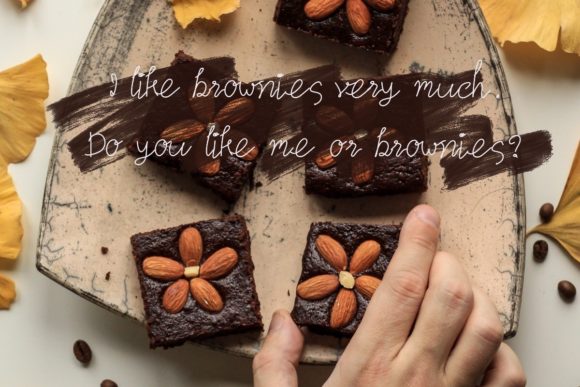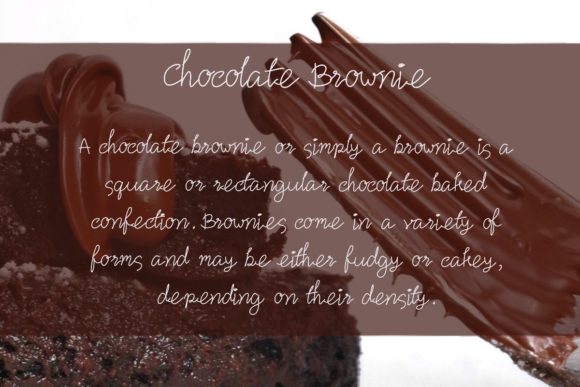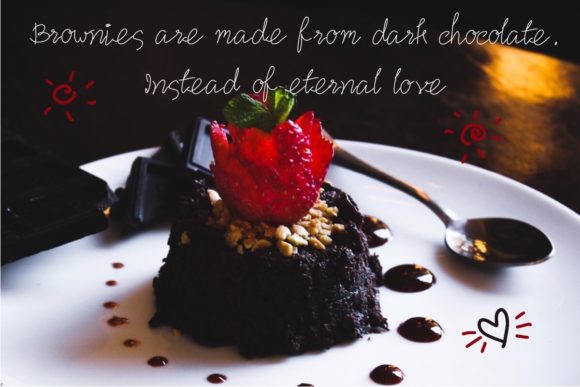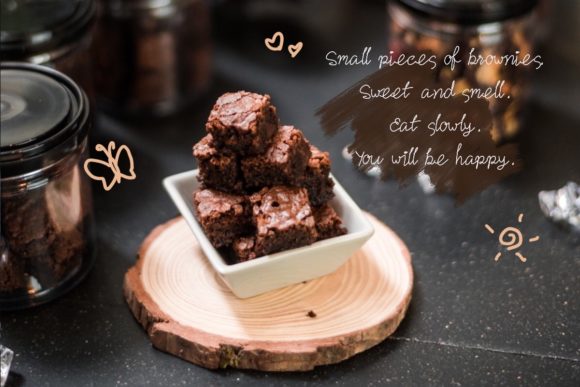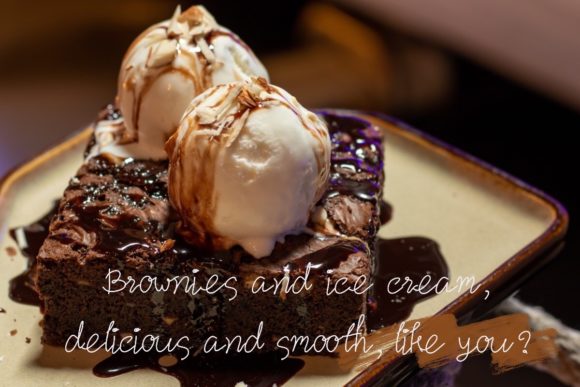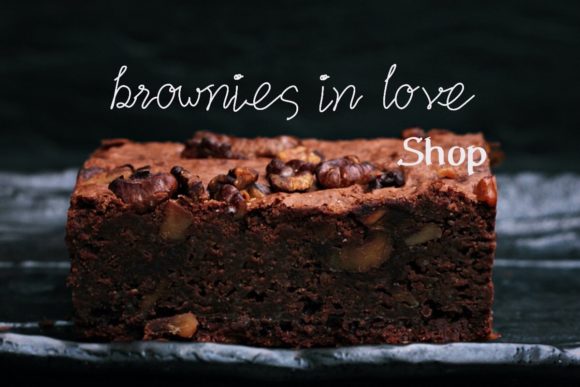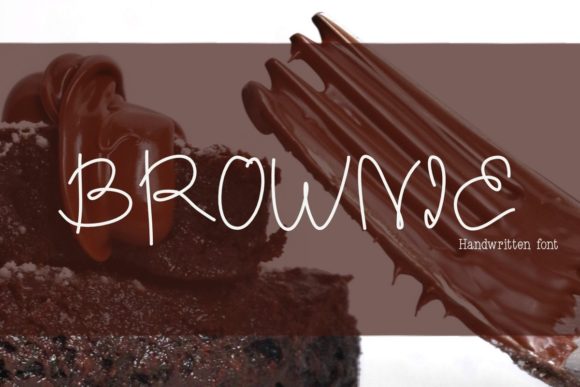
Brownie Font: Elevate Your Designs with Elegance and Style
In the world of typography, a font can make or break the aesthetic of a design. For those seeking a touch of elegance and personalization, the Brownie Font is an exceptional choice. This stylish and elegant handwritten font is perfect for a variety of design projects that require a sophisticated, yet personalized touch.
What is Brownie Font?
Brownie Font is a beautifully crafted handwritten font, designed to add a touch of luxury and refinement to any design. Its elegant strokes and fluid letterforms make it an ideal choice for designers and crafters looking to create stunning visual content. Whether you’re working on wedding invitations, thank you cards, greeting cards, logos, or any other design project, Brownie Font is sure to impress.
Key Features of Brownie Font
- Elegant Handwritten Style: Brownie Font boasts a stylish and elegant handwritten style, perfect for designs that require a personal touch.
- Versatile: This font is versatile and can be used on a variety of design projects, including wedding invitations, thank you cards, weddings, greeting cards, logos, and more.
- Easy to Read: Despite its elegant style, Brownie Font is easy to read, making it perfect for body text and captions.
- Scalable: This font is highly scalable, ensuring that it looks great on any device or medium.
Uses of Brownie Font
Brownie Font is an excellent choice for a wide range of design projects, including:
- Wedding Invitations: Add a touch of elegance and sophistication to your wedding invitations with Brownie Font.
- Thank You Cards: Express your gratitude in style with beautifully designed thank you cards featuring Brownie Font.
- Greeting Cards: Create stunning greeting cards for special occasions, such as birthdays, anniversaries, and holidays.
- Logos: Use Brownie Font to create elegant and sophisticated logos for your business or brand.
- Stationery: Elevate your stationery designs with the elegant and refined style of Brownie Font.
Tips for Using Brownie Font
To get the most out of Brownie Font, here are some tips to keep in mind:
- Pair with Other Fonts: Experiment with pairing Brownie Font with other fonts to create a unique and visually appealing design.
- Use on High-Quality Backgrounds: Ensure that your design has a high-quality background to showcase the elegance of Brownie Font.
- Adjust Font Size and Color: Adjust the font size and color to suit your design and ensure that Brownie Font is the focal point.
In conclusion, Brownie Font is an exceptional choice for designers and crafters looking to add a touch of elegance and sophistication to their designs. With its stylish and elegant handwritten style, versatility, and ease of use, Brownie Font is perfect for a wide range of design projects. Whether you’re working on wedding invitations, thank you cards, logos, or any other design project, Brownie Font is sure to elevate your designs to the next level.